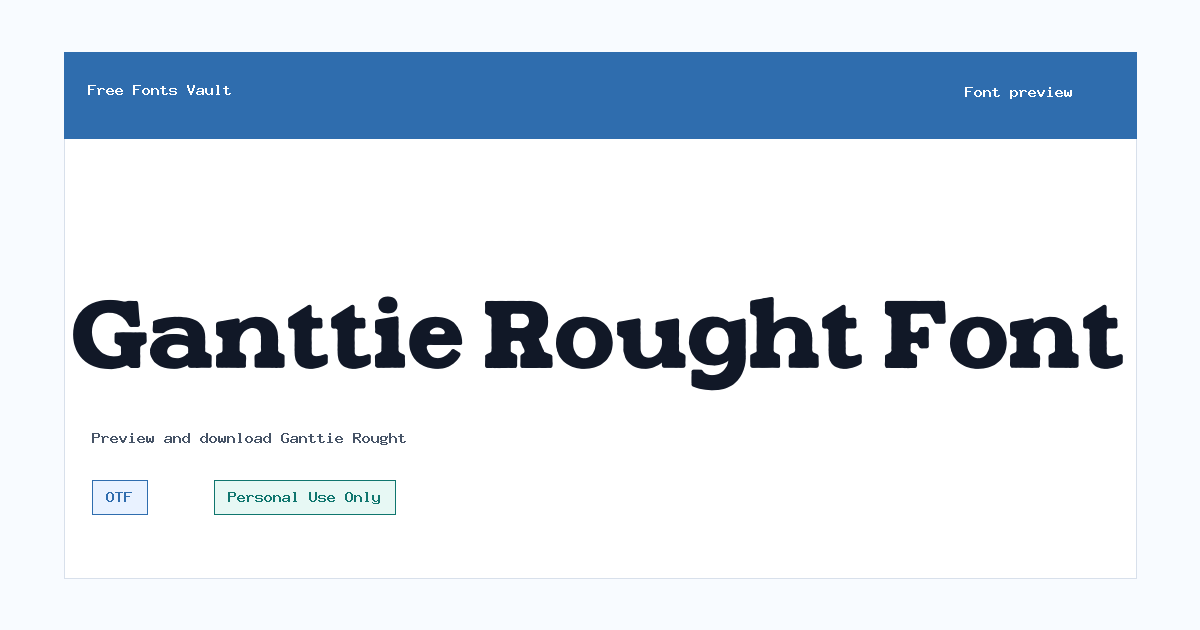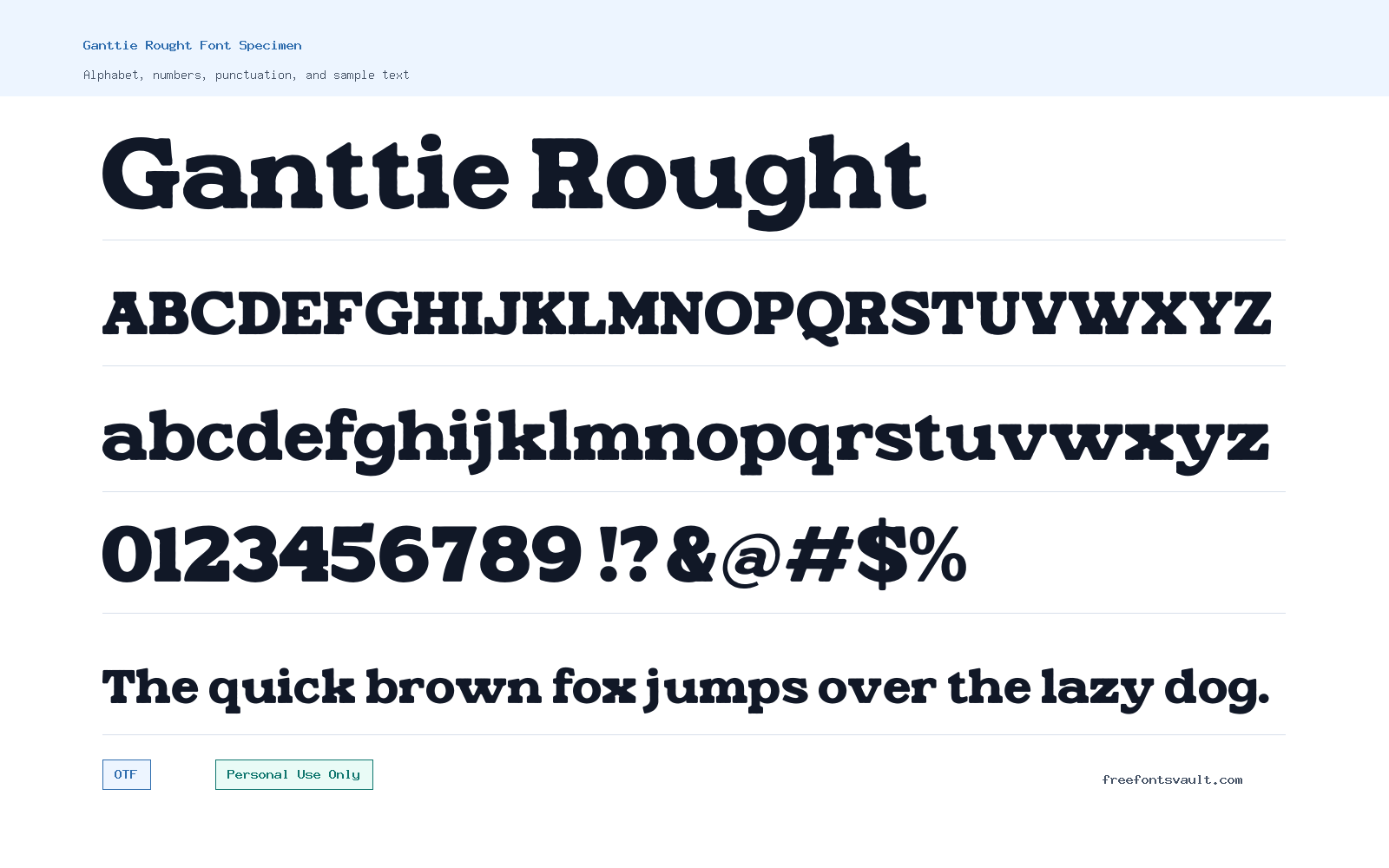
Ganttie Rought
- Designer Shiddiq Roihan
- Foundry Amorfatype Studios
Ganttie Rought font.
Ganttie Rought is a display font for visitors who want a more textured, rough-looking style in short pieces of text. It is provided as an OTF font file and is marked for personal use only, so it is best suited for testing, mockups, and non-commercial creative projects unless you arrange a separate license.
About Ganttie Rought
Ganttie Rought works best when you use it where its rough character can be seen clearly. Rather than treating it like a long-reading text face, try it in bigger settings such as names, short titles, poster-style words, quote graphics, labels, or social post headings. The font name suggests a rugged variation, so the safest way to judge it is to type your own words in the preview and check how the texture, spacing, and letter shapes behave at the size you plan to use.
- Display-friendly rough style suited to short words, titles, and decorative text
- Personal posters, quote graphics, mood boards, and social media images
- Short display text where a textured or rough look is more important than long-form readability
The font is credited to Shiddiq Roihan and Amorfatype Studios.
Who designed Ganttie Rought?
Ganttie Rought is credited to Shiddiq Roihan, with Amorfatype Studios listed as the foundry.
What is Ganttie Rought best used for?
It is best used for short display text such as titles, posters, labels, quote images, and personal design experiments where a rough visual style fits the project.